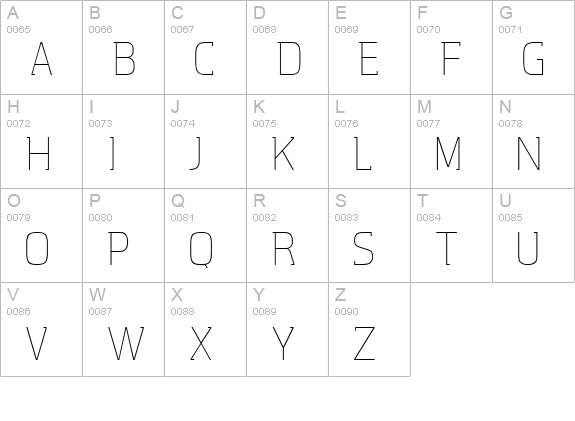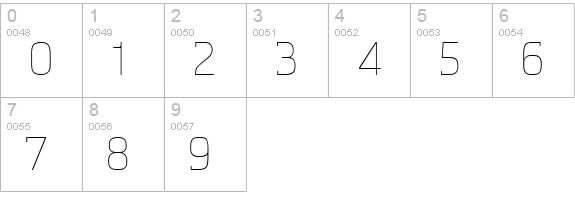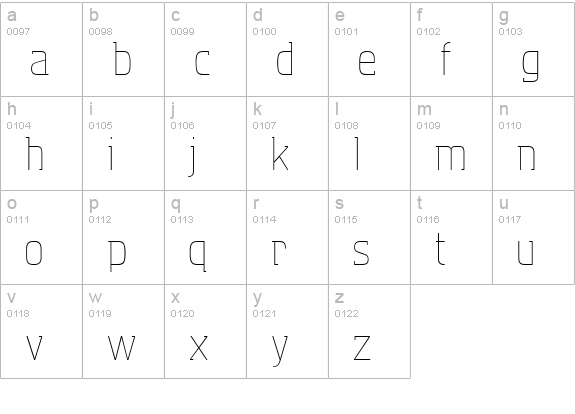
Aquarius Regular Font Details
Aquarius Regular is the standard, neutral variant in the Aquarius typeface family \xE2\x80\x94 well suited to general body text, paragraphs, and standard typographic work.
Aquarius Regular font is a versatile and modern typeface that exudes a sense of creativity and uniqueness. With its clean lines and stylish design, this font is perfect for a wide range of projects, from branding and logo design to web design and print materials. One of the best things about Aquarius Regular font is that it is completely free to download. You can easily access this font at FontsMarket.com, where you can find a variety of other high-quality fonts to enhance your design projects. Whether you are looking to add a touch of sophistication to your latest project or simply want a font that stands out from the crowd, Aquarius Regular font is sure to impress. Download it today and elevate your designs to the next level.